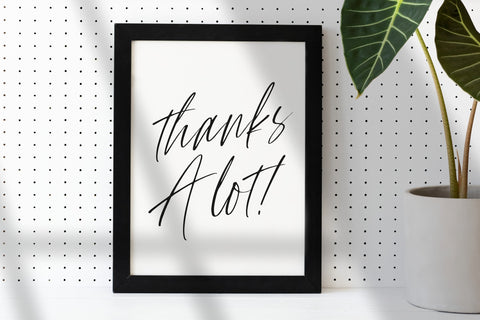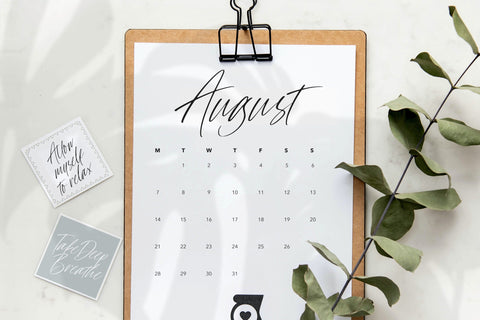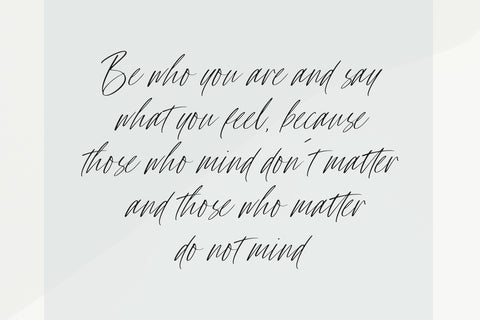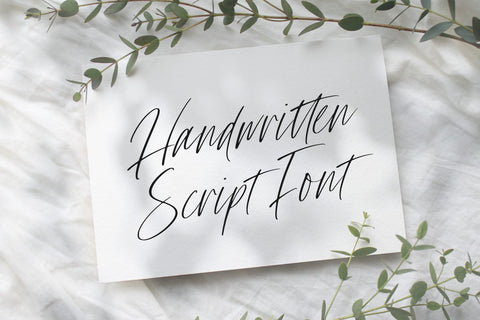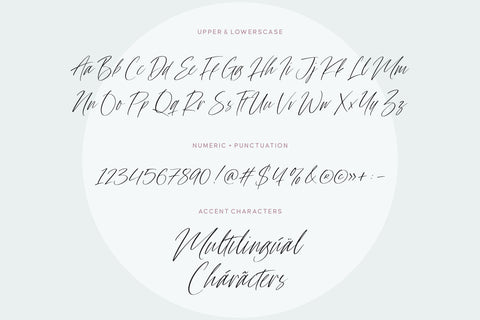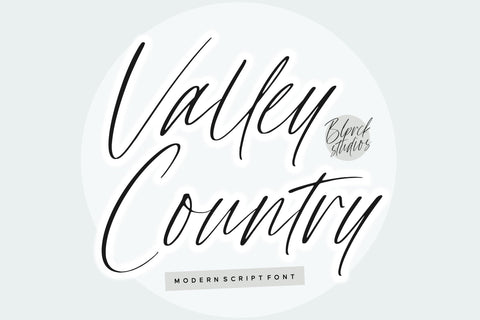
Valley Country Modern Script Font
Proudly Present, Valley Country Font.
Valley Country is a Modern Script Font.
Valley Country Script is an enchanting handwritten font. This versatile script font has a wide spectrum of applications ranging from greeting cards to headlines and is guaranteed to add a romantic feel to your next project.